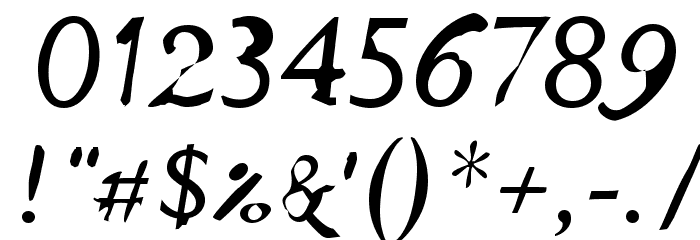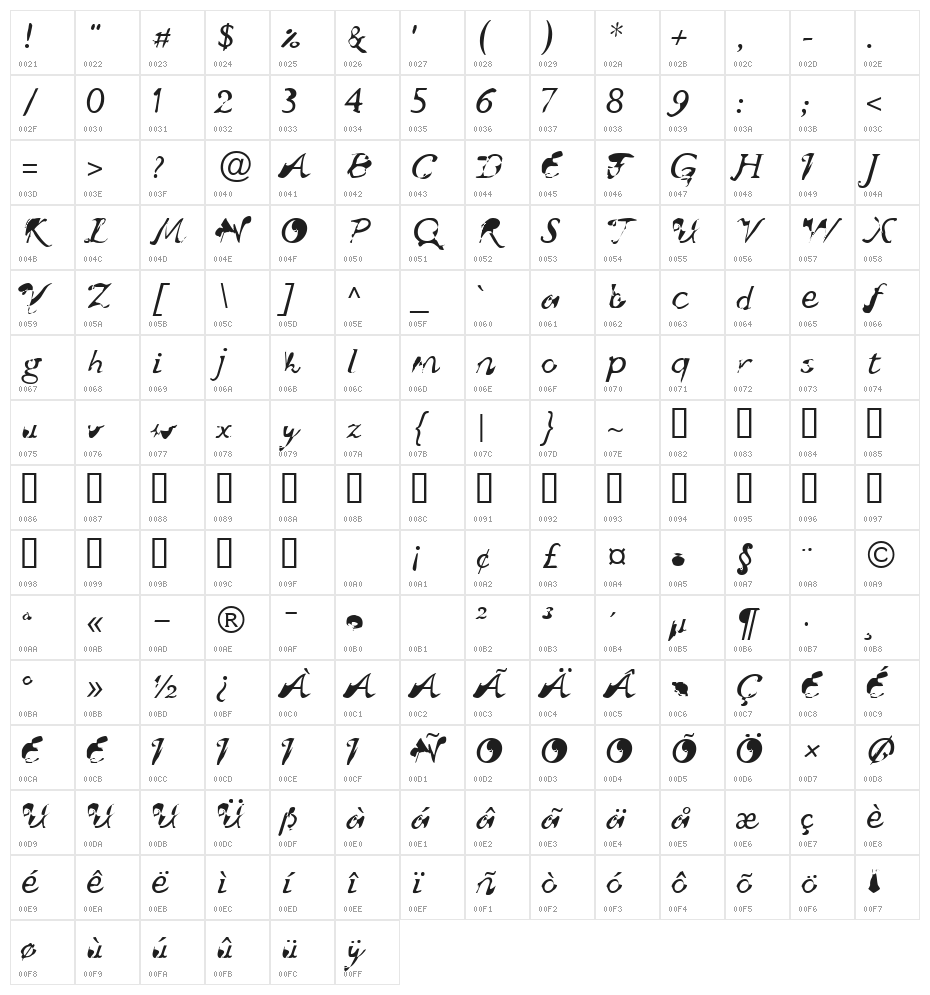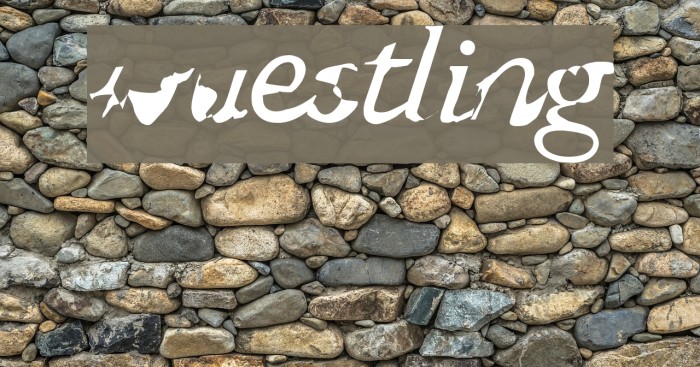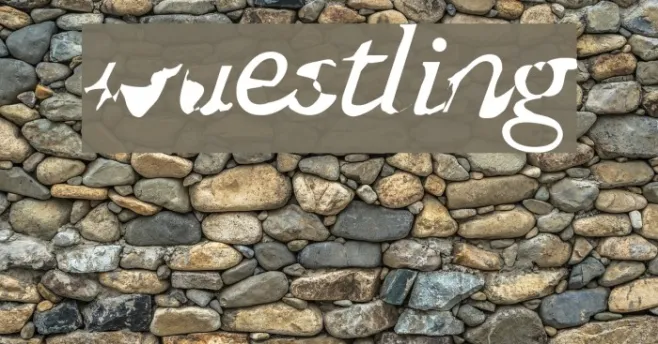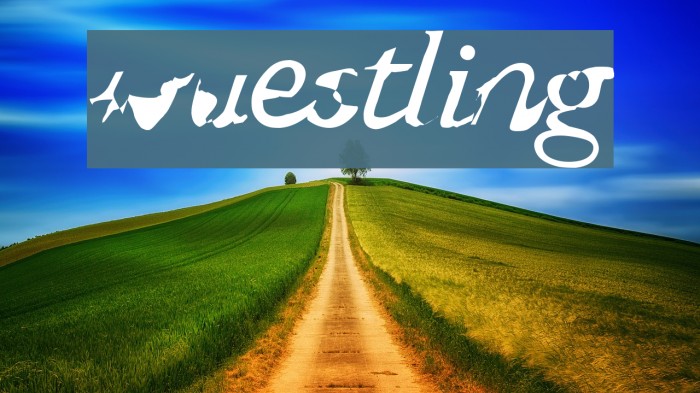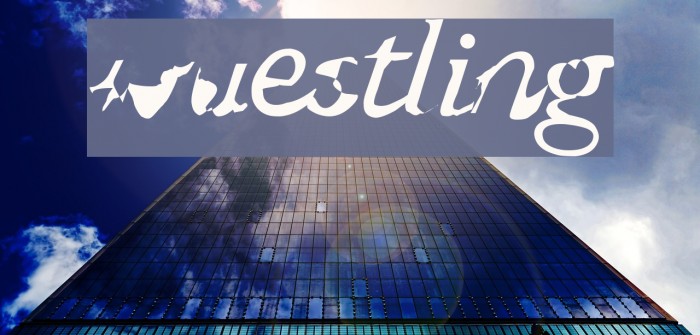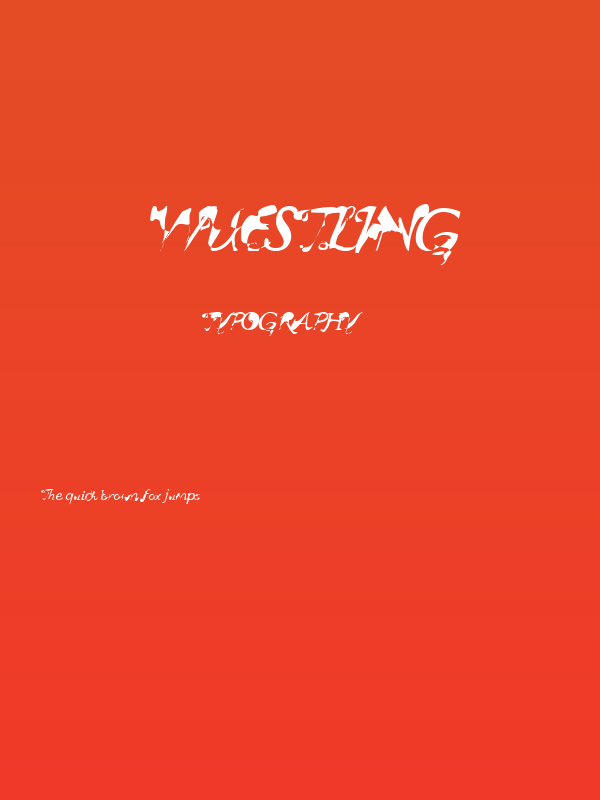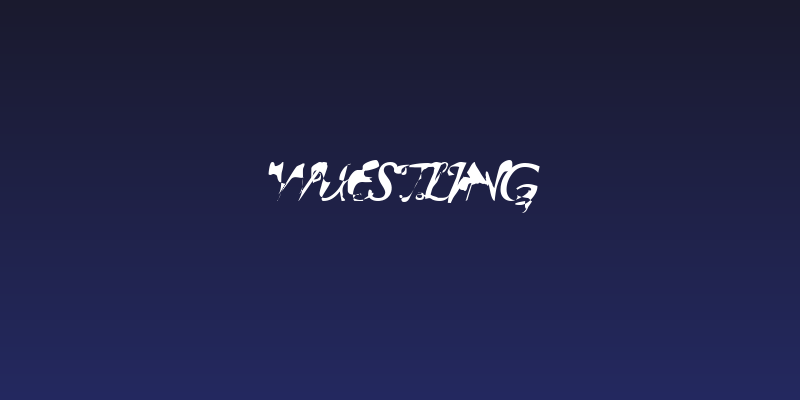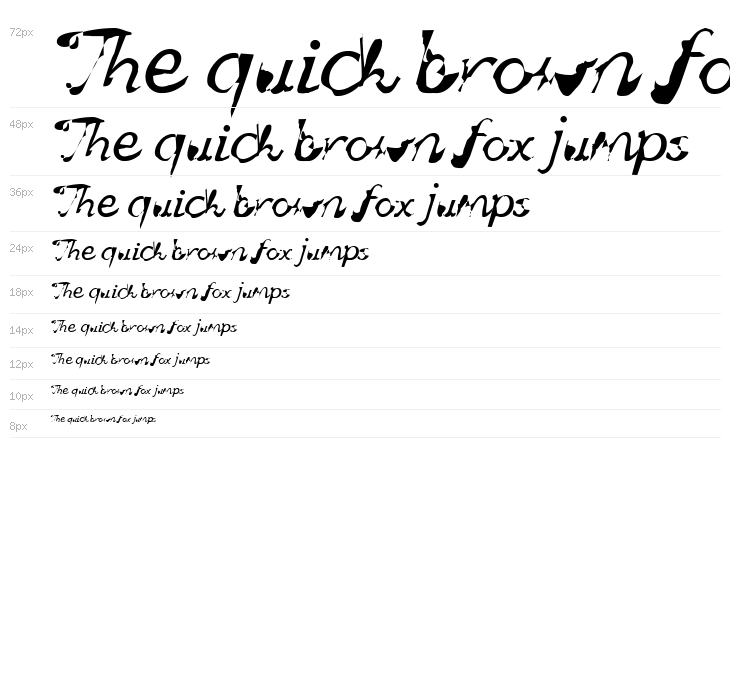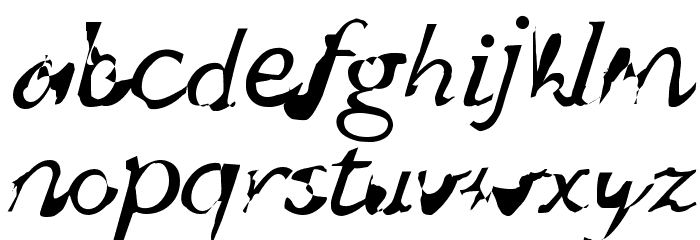
wuestling Font
wuestling Description
This font exhibits a dynamic and expressive style, characterized by its fluid, cursive strokes and high contrast between thick and thin lines. The letters are slightly slanted, giving a sense of movement and elegance. The uppercase letters are bold and prominent, while the lowercase letters maintain a consistent flow, enhancing readability. The numerals are distinct and match the overall style, providing a cohesive look. Special characters are creatively integrated, maintaining the font's artistic flair.
| Use Case | Logos, Invitations, Artistic Posters |
| Proposed Projects | Ideal for creative projects such as invitations, branding, and artistic posters where a touch of elegance and flair is desired. |